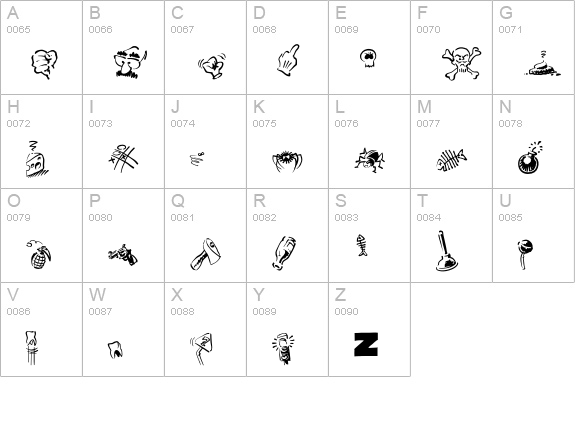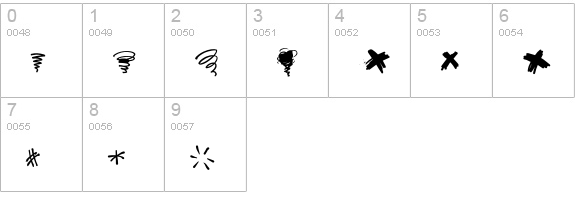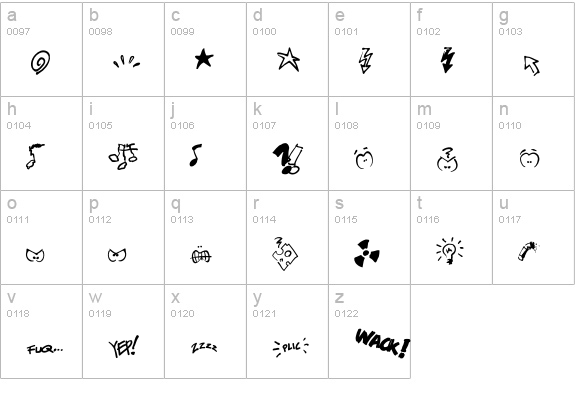
DammnedDingbats-Regular Font Details
DammnedDingbats-Regular is the standard, neutral variant in the DammnedDingbats typeface family \xE2\x80\x94 well suited to general body text, paragraphs, and standard typographic work.
DammnedDingbats-Regular font is a captivating and versatile typeface that adds a touch of mystery and intrigue to any design project. With its intricate and unique dingbats, this font offers a wide range of symbols, icons, and decorative elements that will undoubtedly catch the eye of your audience. Designed with meticulous attention to detail, DammnedDingbats-Regular font is perfect for creating eye-catching logos, captivating headlines, or adding a little extra flair to your social media posts. Each glyph has been carefully crafted to ensure clarity and legibility, making it suitable for both print and digital applications. But what sets DammnedDingbats-Regular font apart is not just its exceptional design, but also the fact that it is absolutely free! That's right, this incredible font is freely available to download at FontsMarket.com. Now you can enhance your projects with this remarkable font without breaking the bank. Whether you're a professional designer looking to add some creative elements to your work or a hobbyist seeking to add a unique touch to your personal projects, DammnedDingbats-Regular font is the perfect choice. Its versatility, attention to detail, and the fact that it is free make it a must-have font for any designer's collection. So don't miss out on this incredible opportunity to download DammnedDingbats-Regular font for free at FontsMarket.com. Enhance your designs, captivate your audience, and unleash your creativity with this extraordinary font.